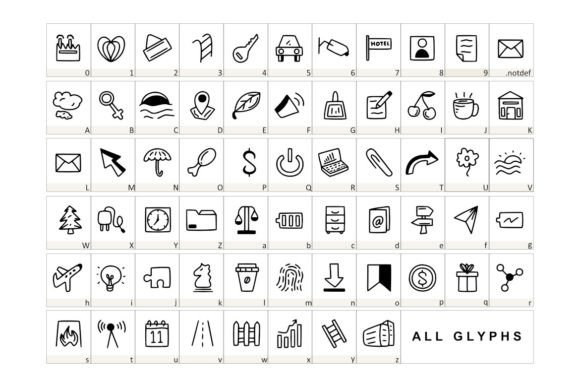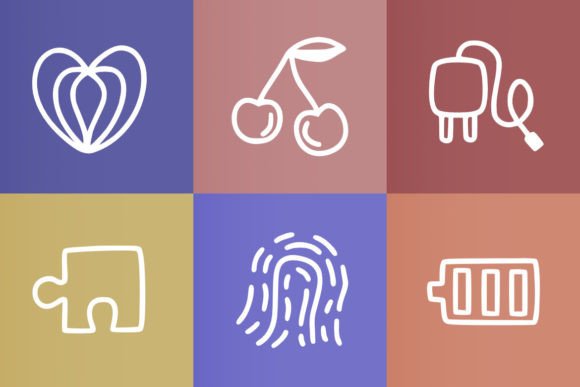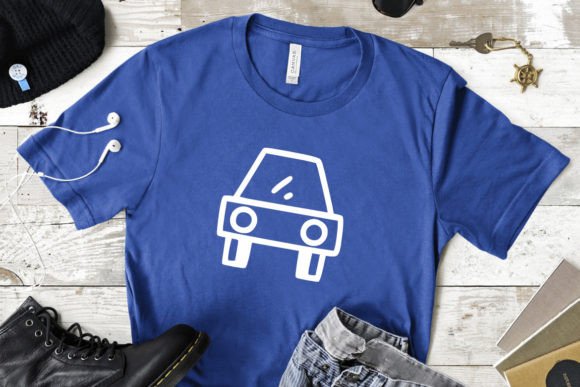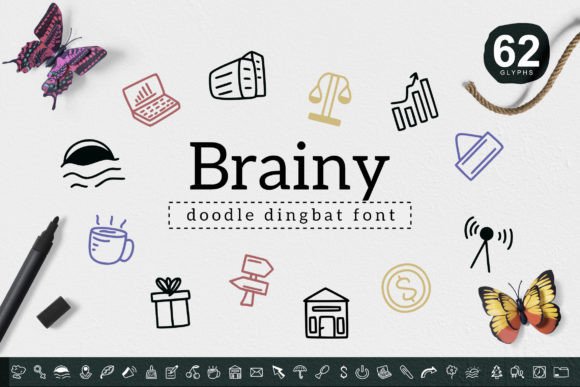
The Brainy Font: A Cute and Useful Dingbats Font for Creative Projects
Have you ever been in the middle of a design project, and suddenly, you can’t find the perfect font to bring your idea to life? I certainly have! It was a typical Wednesday afternoon when I was working on a sticker design for a client’s event. I had a clear vision of what I wanted to create, but the fonts I had were just not cutting it. That’s when I stumbled upon the Brainy font, and let me tell you, it was love at first sight! 😍
Brainy is a cute and useful dingbats font perfect for a wide variety of projects. Use it for stickers, posters, t-shirts, cards, apparel graphics, etc.; you will love the results! In this article, I’ll share my experience with the Brainy font, its features, and how to make the most of it in your designs.
An Honest Review of Brainy Font
What I Love About Brainy Font ✨
• 🎉 Cute and Playful Design: Brainy font has a unique, hand-drawn feel that adds a touch of personality to any design.
• ✅ Versatile: This font is perfect for a wide range of projects, from stickers and posters to t-shirts and cards.
• 🔍 Easy to Read: Despite its playful design, Brainy font is surprisingly easy to read, making it perfect for headlines and titles.
• 🤝 OpenType Features: Brainy font comes with a range of OpenType features, including glyphs and stylistic alternates, which allow for endless creative possibilities.
While Brainy font is an excellent choice for many projects, there are a few things to keep in mind:
• 🤔 Limited Use for Body Text: Due to its playful design, Brainy font may not be the best choice for body text or long paragraphs.
• ⚠️ Some Glyphs May Not Display Properly: As with any font, some glyphs may not display properly on all devices or platforms.
A Practical Guide to Using Brainy Font
The Backstory of Brainy Font
Brainy font was designed by a team of creatives who wanted to create a unique, versatile font that would inspire designers and hobbyists alike. The font was inspired by the nostalgia of handwritten notes and the playfulness of dingbats. The designers aimed to create a font that would be both cute and useful, perfect for a wide range of creative projects.
Q: What is Brainy font?
A: Brainy font is a cute and useful dingbats font perfect for a wide variety of projects, including stickers, posters, t-shirts, cards, and more.
Q: Does Brainy font come with OpenType features?
A: Yes, Brainy font comes with a range of OpenType features, including glyphs and stylistic alternates, which allow for endless creative possibilities.